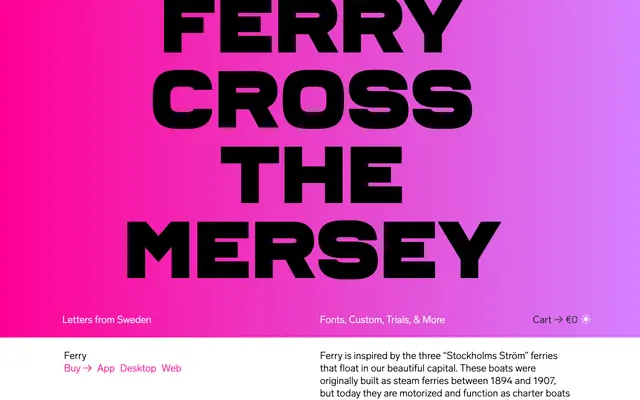
A single black-weight display face drawn from lettering found on three early 20th-century Stockholm steam ferries, released as Erik Moberg's first commercial typeface.
Derived from nine letters spotted on the 'Stockholms Ström' ferry boats built between 1894 and 1907, the design captures a sturdy, vernacular quality with notably characterful letterforms. Available in one weight only, it covers Latin, Cyrillic and Greek scripts, making it broadly useful for headlines and short display text across multiple languages. Its origins in unattributed painted signage give it an authentic historical character that separates it from generic heavy display faces.
A single-weight black display typeface drawn from the sturdy painted lettering found on early 20th-century Stockholm steam ferries. The bold, condensed letterforms with distinctive details like the K place it firmly in the display category.